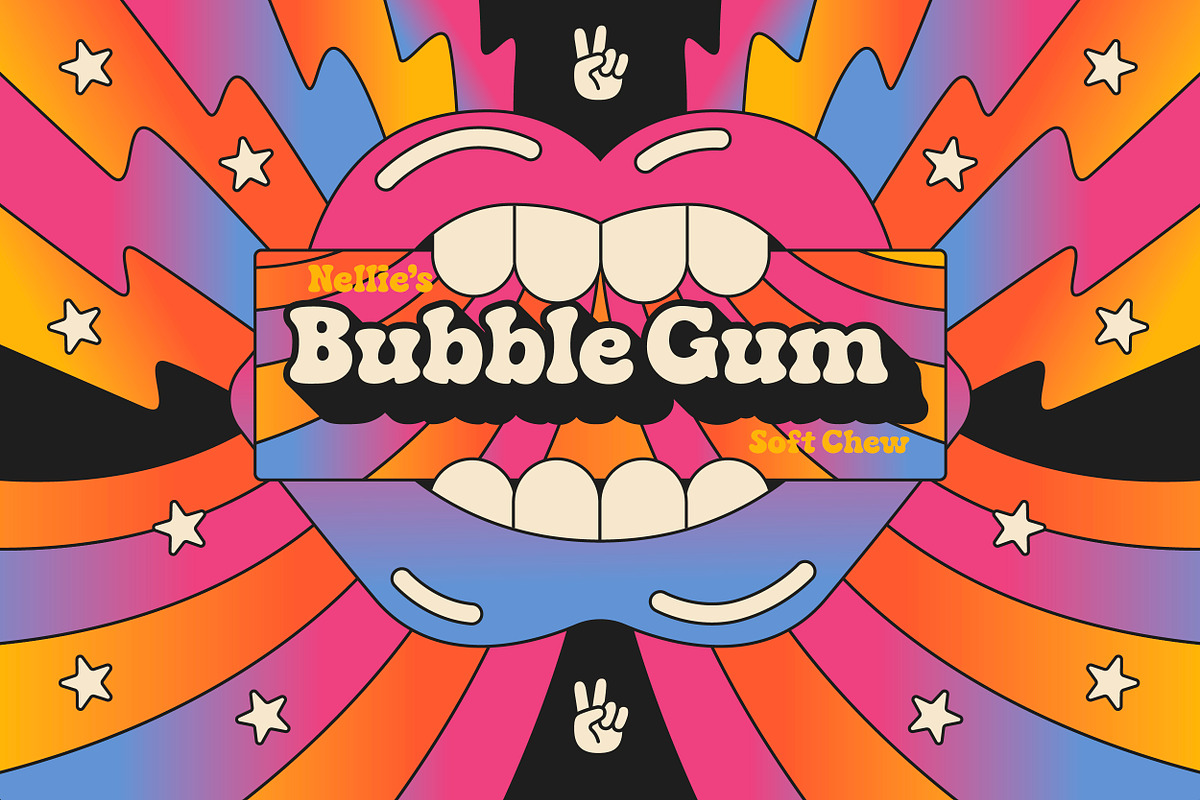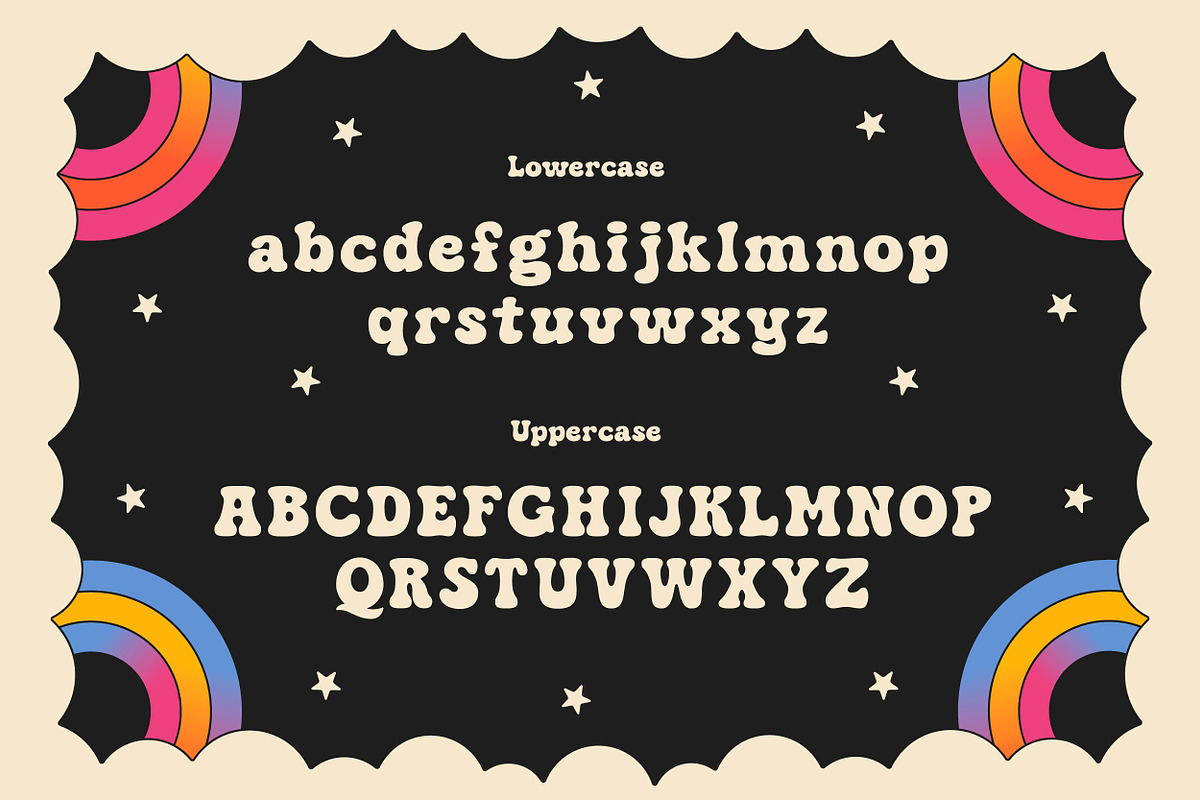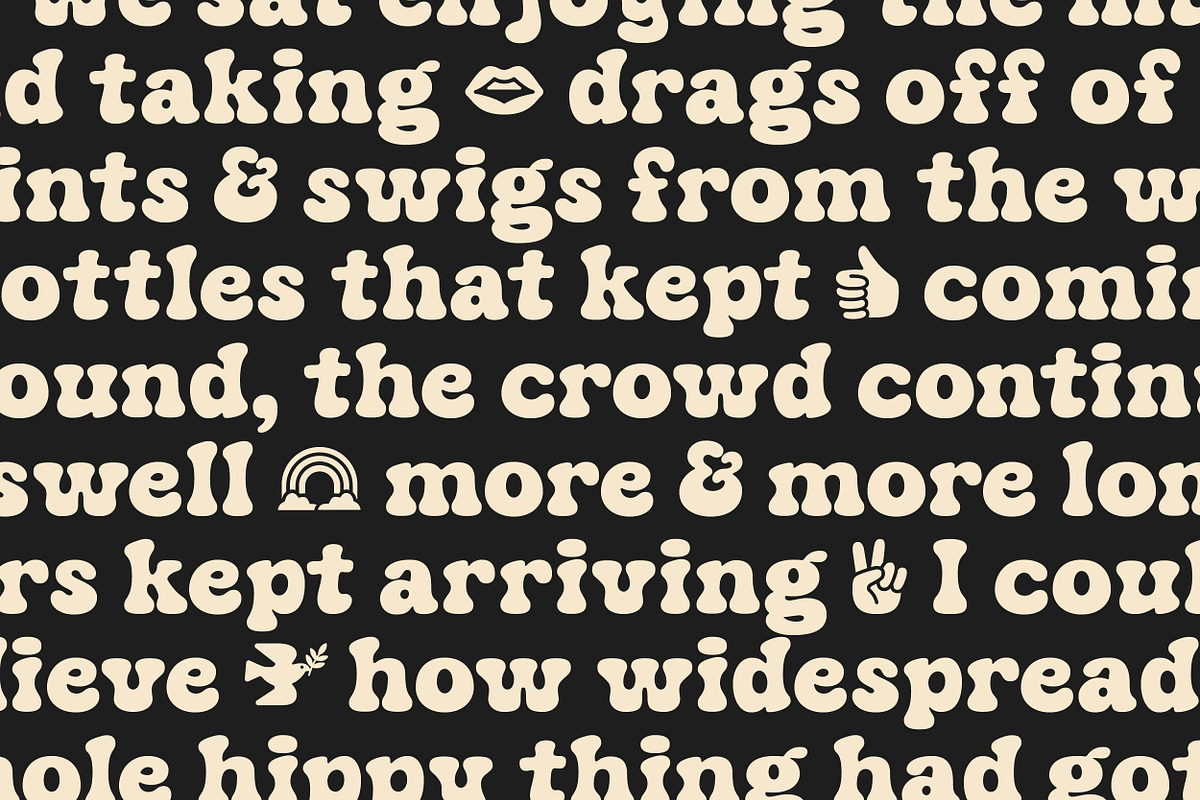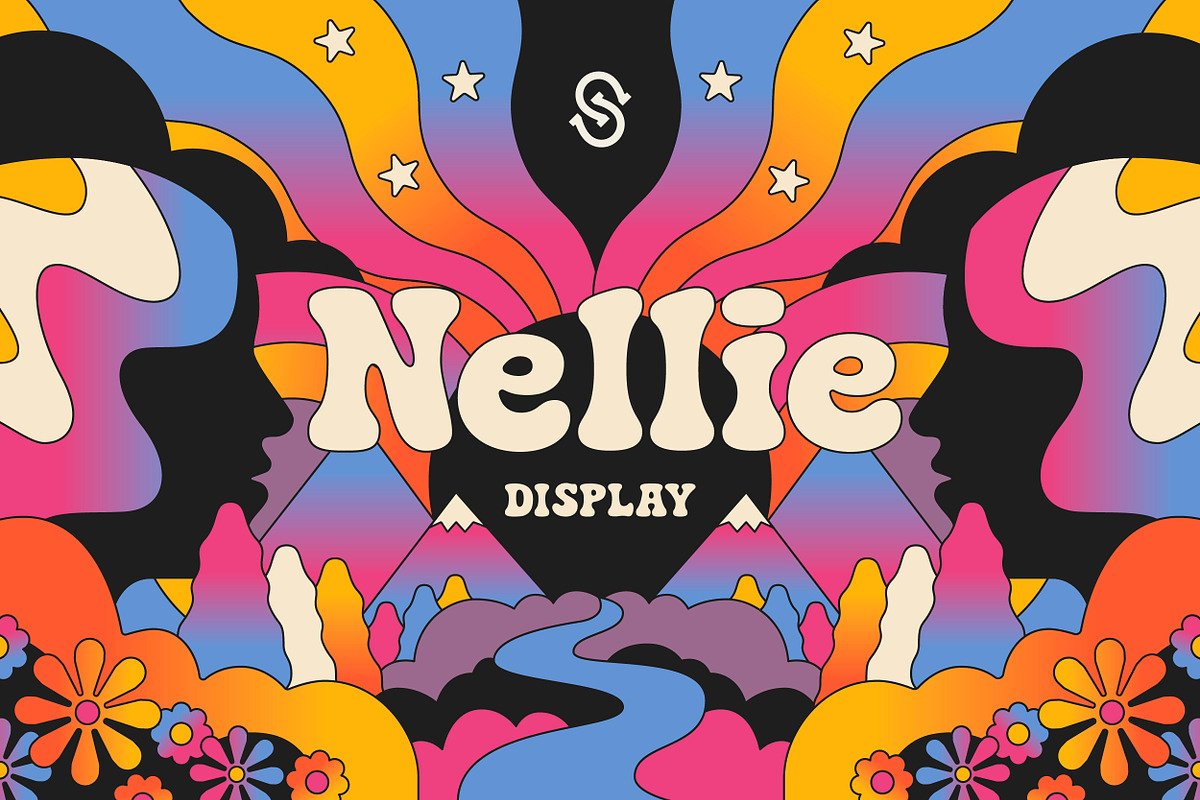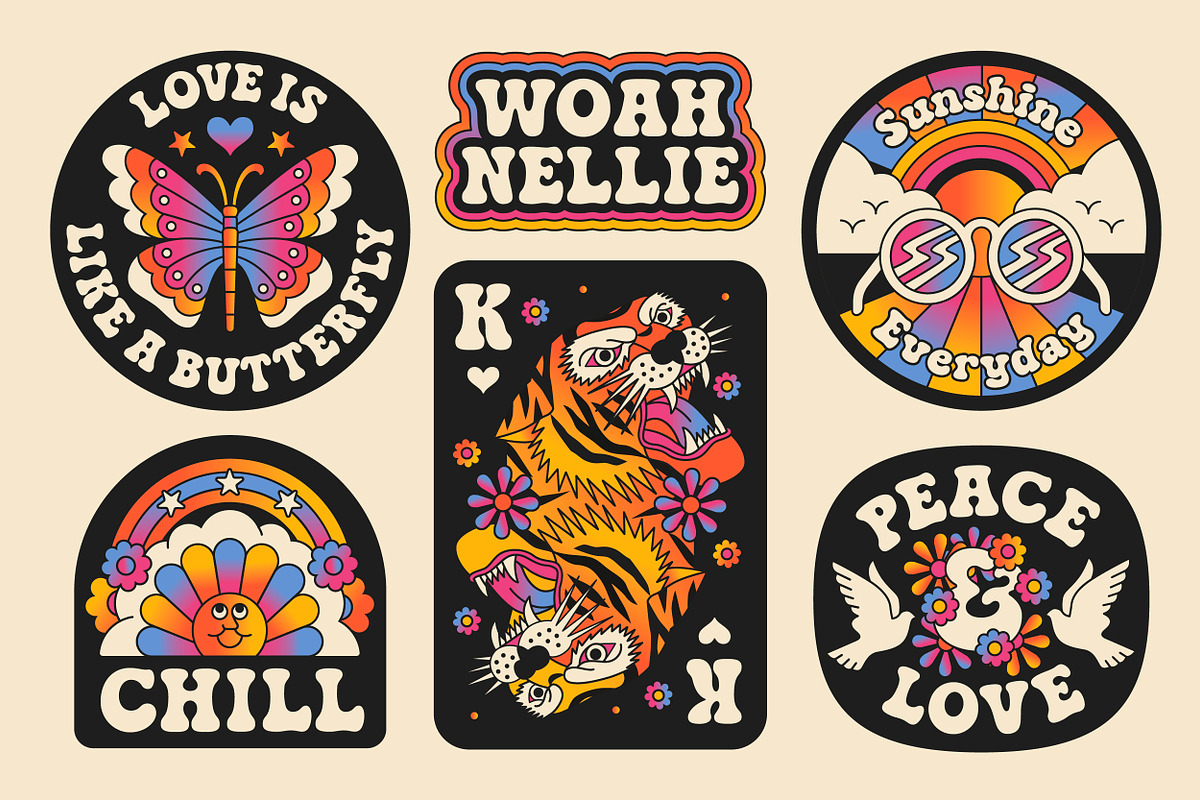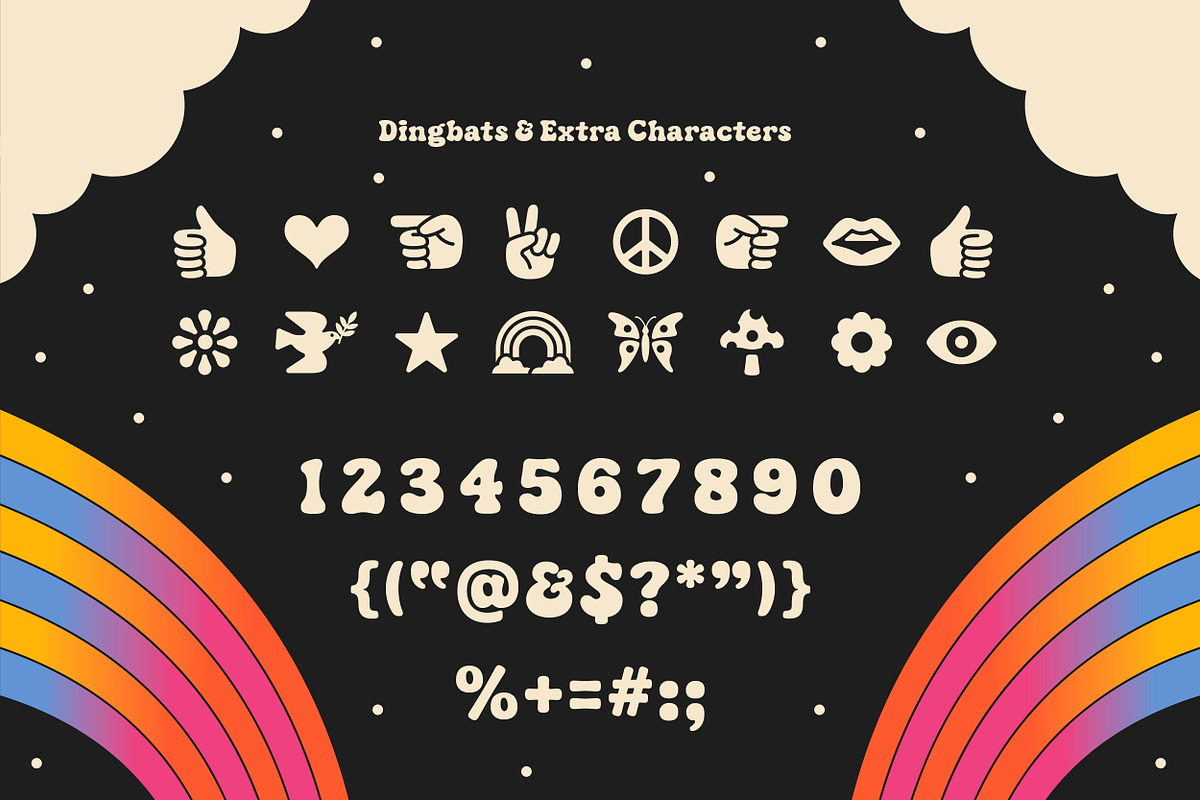
Nellie - Display Font
Woah, Nellie Display! Yet another retro font by Stable. Nellie is bold, friendly, and playful - perfect for 60’s and 70’s inspired designs. Includes uppercase, lowercase, numbers, punctuation, and a handful of illustrated dingbats.